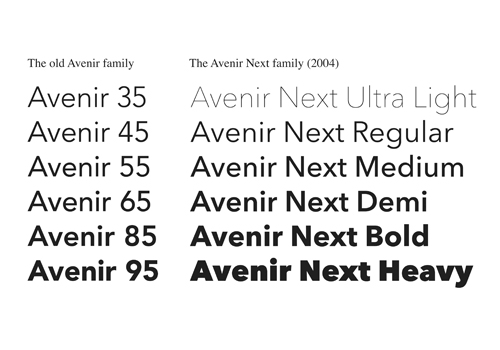
Avenir Light Font Pairing. Avenir font family (includes 13 typeface) avenir light; Include this font for better readability and consistency.
Following the success enjoyed by the original release of avenir, type foundry linotype returned to frutiger to invite him to work on an expanded reworking of the avenir font family. It goes well with didot, minion, georgia, helvetica neue, tiempos, century school, futura pt, sabon next, canela and comfortaa. A pair of avenir font and fortnite font is the best choice to create beautiful designs.
Using these with the thin or light style gets me pretty close to avenir next. This family is not only an update though, in fact it is the expansion of the original concept that takes the avenir next design to the next level. Anygood is a great example.
If you're thinking about using avenir then try 30px for headers. Although modeled after futura (avenir is the french word for future) and classified as a geometric sans, avenir has some slightly humanist features that add warmth to the face, such as the. For more information keep scroling.